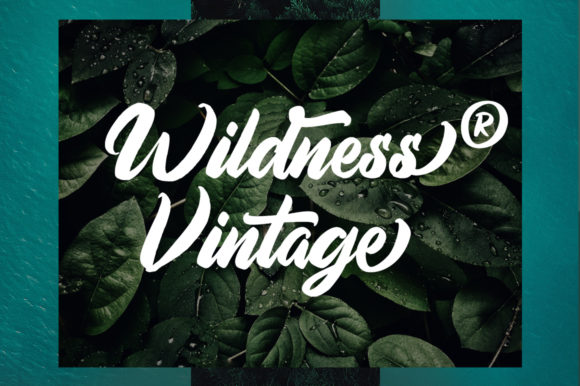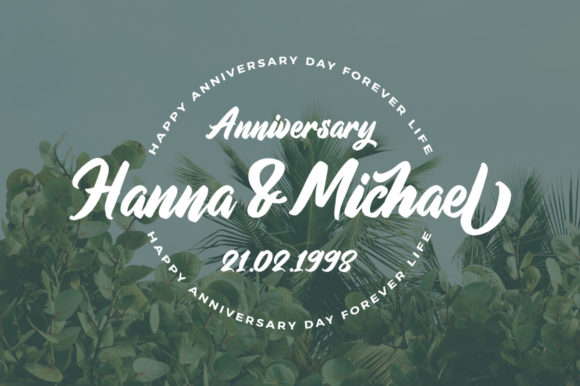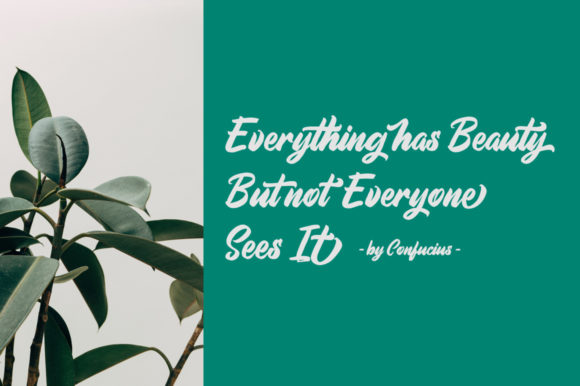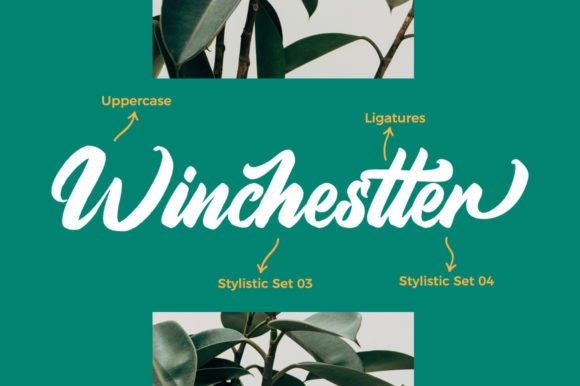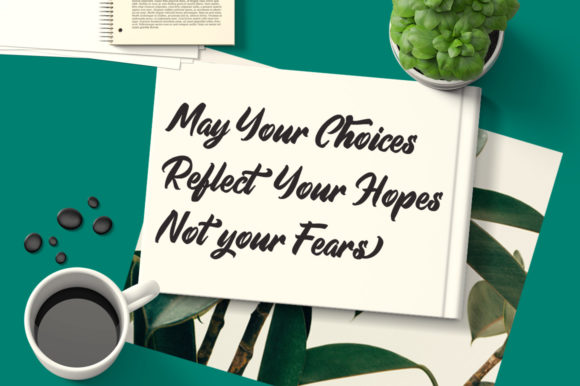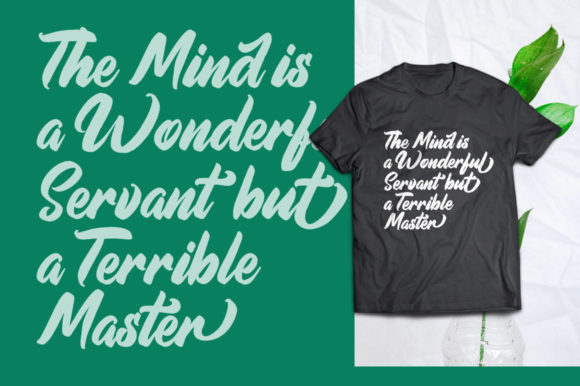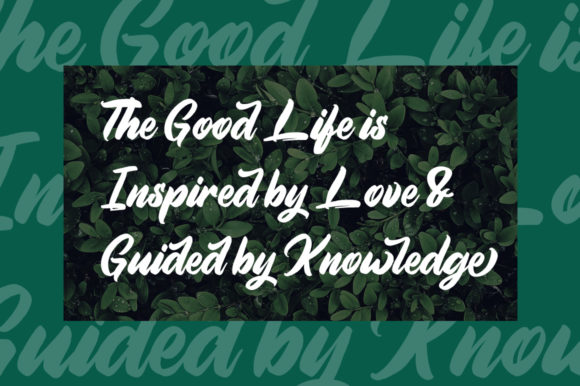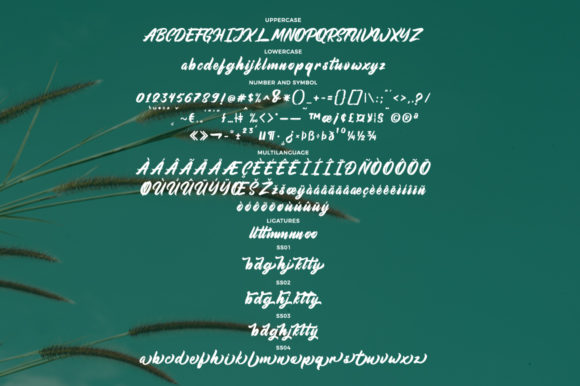
Aimchestar Script Font
About Aimchestar Script Font
Aimchestar Script is a unique and casual handwritten font with a modern style. It is perfectly suited for a wide variety of designs!